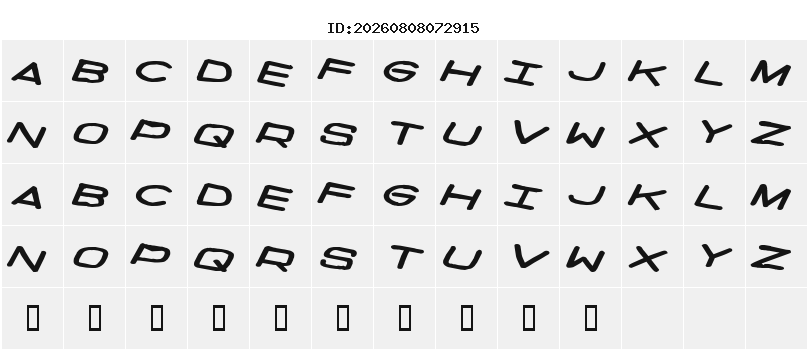
About PrivateInvestigations.ttf
PrivateInvestigations.ttf is a modern, elegant sans-serif font designed for ultimate readability and visual harmony. Perfect for branding, headlines, web design, and print materials.